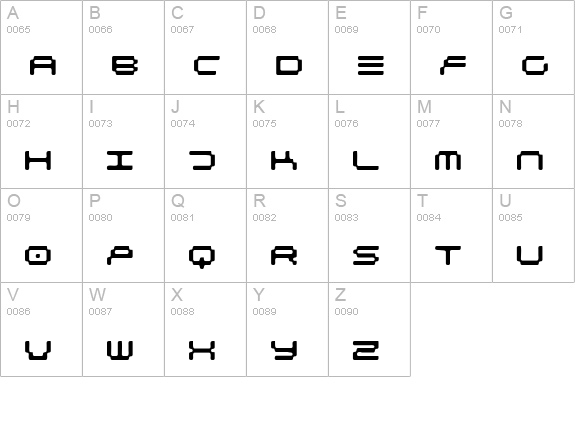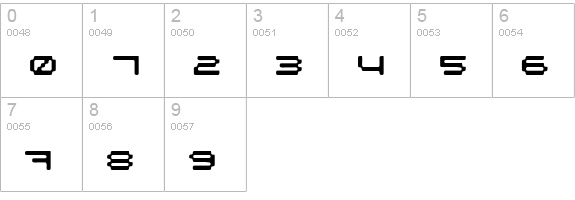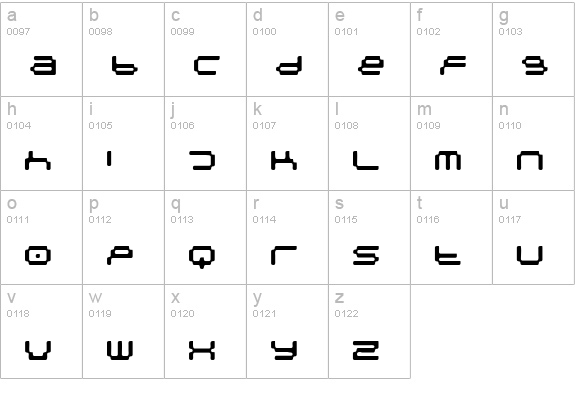
PixelpackRegular Font Details
Introducing PixelpackRegular, a captivating font that combines classic pixel art aesthetics with a modern twist. This versatile typeface is perfect for adding a touch of nostalgia to your designs, while still maintaining a contemporary edge. Its clean lines and crisp edges make it ideal for both digital and print projects. PixelpackRegular offers a wide range of characters, including uppercase and lowercase letters, numbers, punctuation marks, and special symbols. With its precise pixel grid, every character is meticulously crafted to ensure a polished and professional appearance. One of the most remarkable features of PixelpackRegular is that it is free! Yes, you read that right. This incredible font can be downloaded for free at FontsMarket.com. Whether you're a professional designer, a hobbyist, or simply someone who appreciates high-quality typography, PixelpackRegular is a must-have addition to your font collection. With PixelpackRegular, the possibilities are endless. Use it to create eye-catching logos, intriguing headlines, captivating posters, or even to add a unique touch to your social media posts. Its versatility allows it to seamlessly blend with various design styles, making it a valuable asset for any creative project. So why wait? Head over to FontsMarket.com and download PixelpackRegular today. Join the ever-growing community of designers who have fallen in love with this exceptional font. Give your designs the pixel-perfect touch they deserve, and let PixelpackRegular take your creativity to new heights.